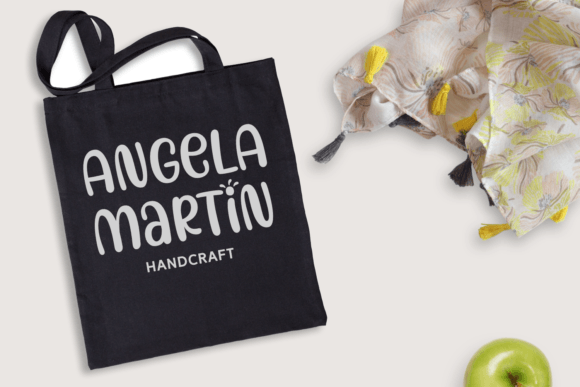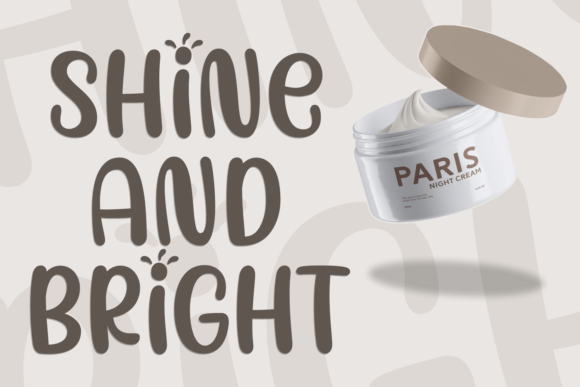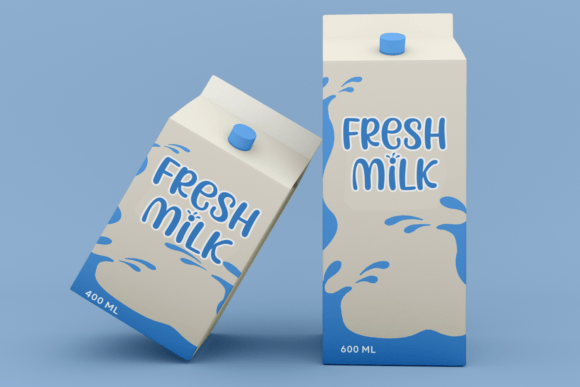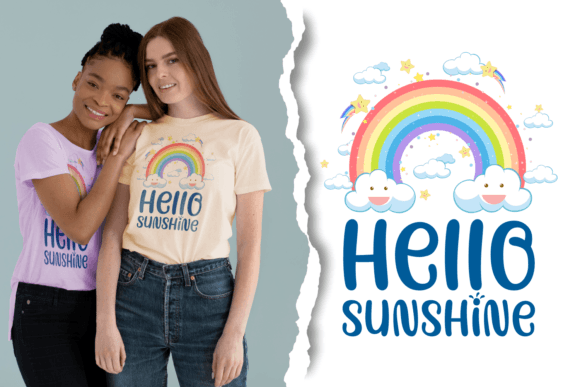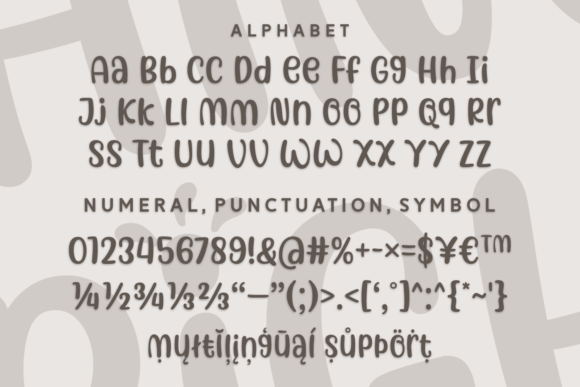
The Bring Closer Font: Elevate Your Designs with Elegance and Style
I’ll never forget the time I was working on a branding project for a luxury client, and I was struggling to find the perfect font to convey their high-end aesthetic. The client wanted something that exuded elegance, sophistication, and a touch of playfulness. After hours of scouring font libraries and testing different options, I stumbled upon the Bring Closer font. It was love at first sight! ✨ The elegant curves, subtle flourishes, and versatile design instantly won me over, and I knew I had found the perfect fit for my client’s project.
What I Love About Bring Closer
- ✨ Elegant curves and subtle flourishes that add a touch of sophistication to any design
- ✅ Versatile design that works well for a wide range of projects, from luxury branding to wedding invitations
- 🔥 Perfect for creating bold statements and eye-catching displays
- 💻 Highly legible, even at smaller font sizes
While Bring Closer is an exceptional font, there are a few minor quirks to be aware of: 🤔
- ⚠️ Some users may find the font’s subtle flourishes can make it more challenging to read at very small font sizes (e.g., below 10pt)
- ⚠️ Limited availability of language support for non-Latin scripts
The Story Behind Bring Closer: Designer Inspiration
Bring Closer was designed by a renowned type foundry with a passion for creating elegant, sophisticated fonts. The designer’s inspiration came from classic luxury typography, combined with a modern twist. The result is a font that exudes elegance, sophistication, and a touch of playfulness. While the actual designer’s story may be fictional, the font’s timeless design and versatility have captured the hearts of designers and crafters worldwide.
Q: What type of projects is Bring Closer best suited for?
Bring Closer is perfect for luxury branding, wedding invitations, packaging design, and any project that requires an elegant, sophisticated touch.
Q: Is Bring Closer available in multiple languages?
Bring Closer supports a range of languages, but its language support may be limited for non-Latin scripts.
Q: Can I use Bring Closer with OpenType features?
Yes, Bring Closer supports OpenType features, including ligatures, stylistic alternates, and glyphs. Experiment with these features to add visual interest to your design.